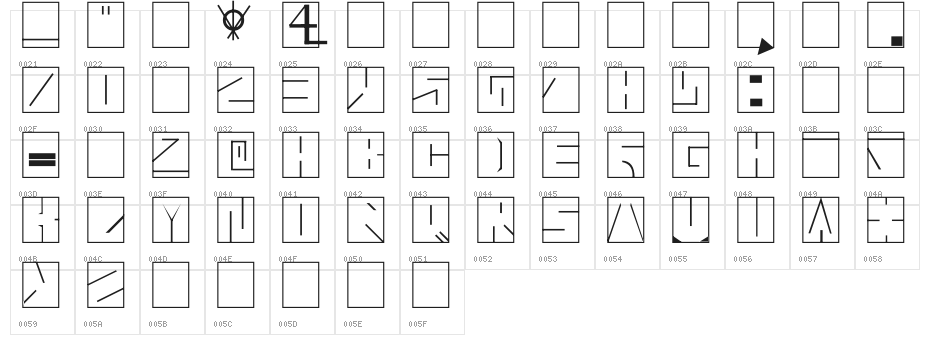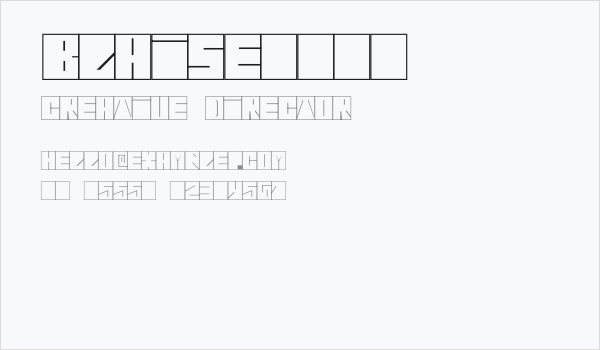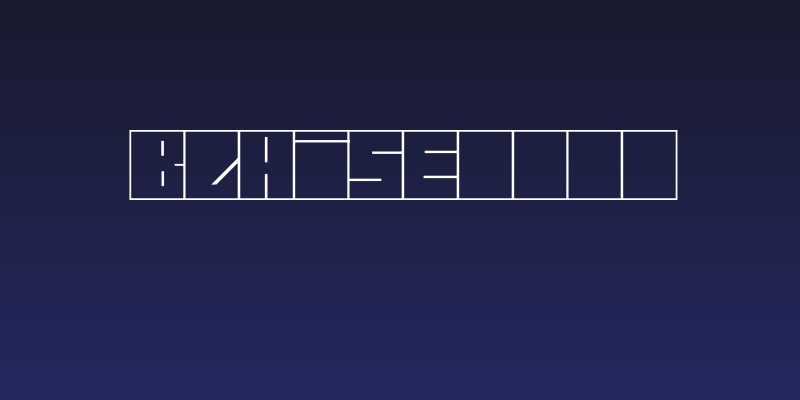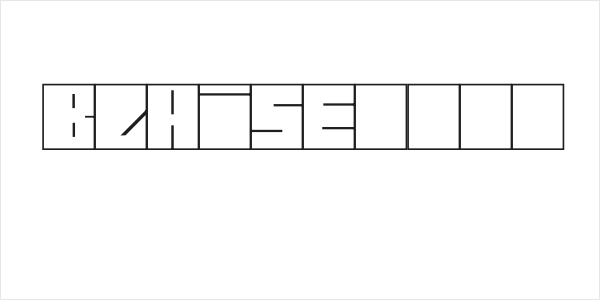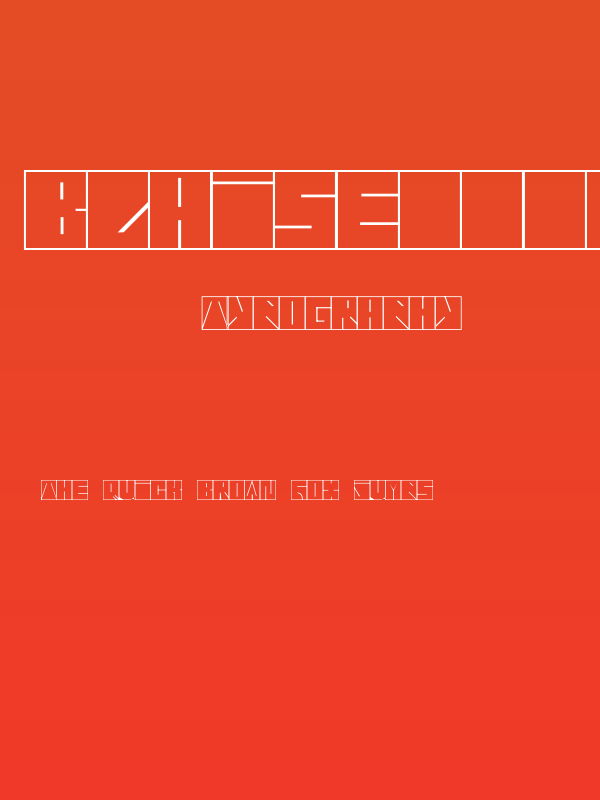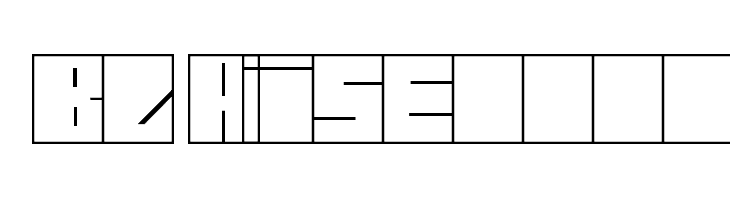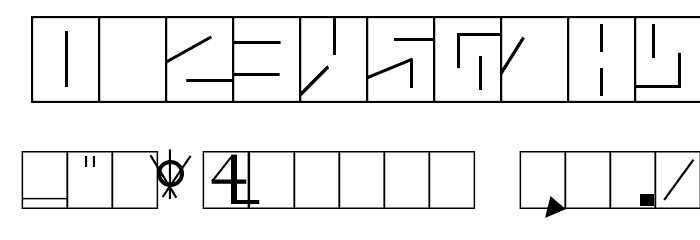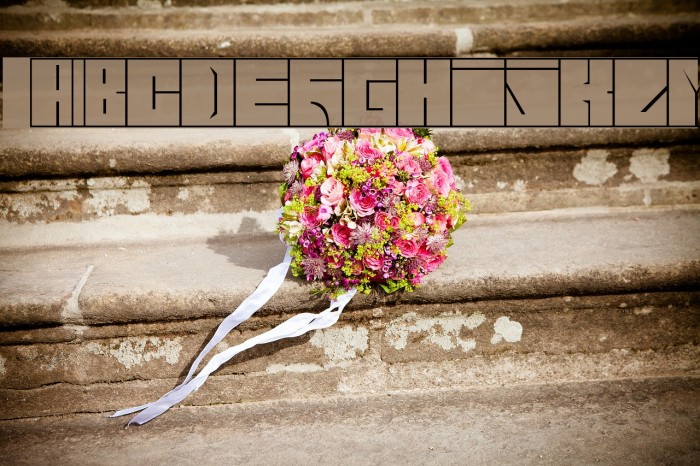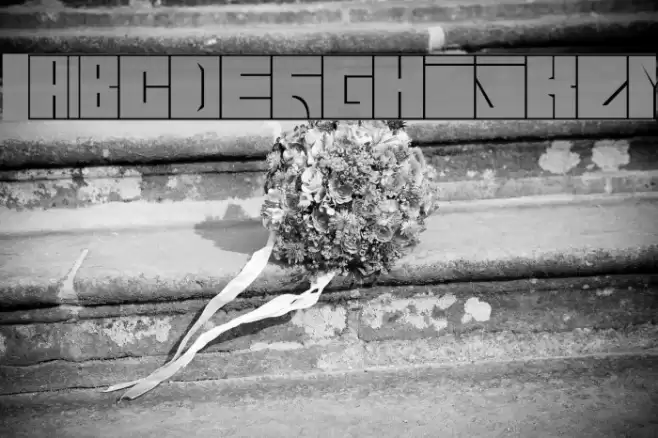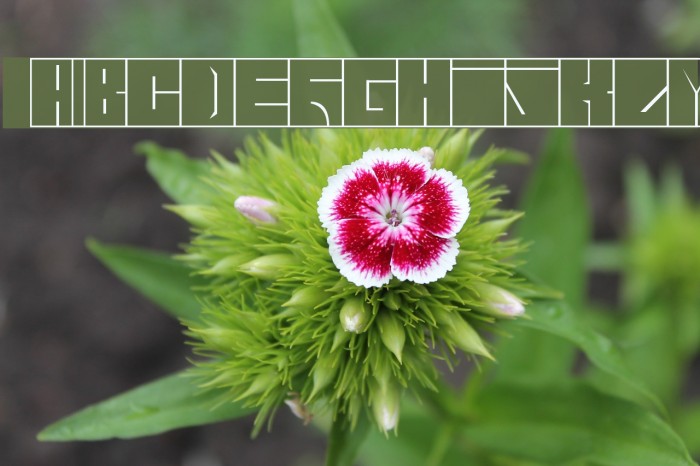
Blaise-1-1 Font
Blaise-1-1 Description
This font features a highly geometric and abstract design, characterized by its use of straight lines and sharp angles. Each character is enclosed within a rectangular frame, giving it a structured and modern appearance. The letters are formed using minimalistic strokes, often with unexpected cuts and angles that create a sense of movement and dynamism. This unique style makes it stand out as a decorative and artistic choice, suitable for projects that require a bold and unconventional look. The font's design is consistent across uppercase, lowercase, and numeric characters, maintaining its distinct aesthetic throughout.
| Use Case | Logos, Posters, Artistic Displays |
| Proposed Projects | Ideal for modern art projects, futuristic branding, and avant-garde posters. |